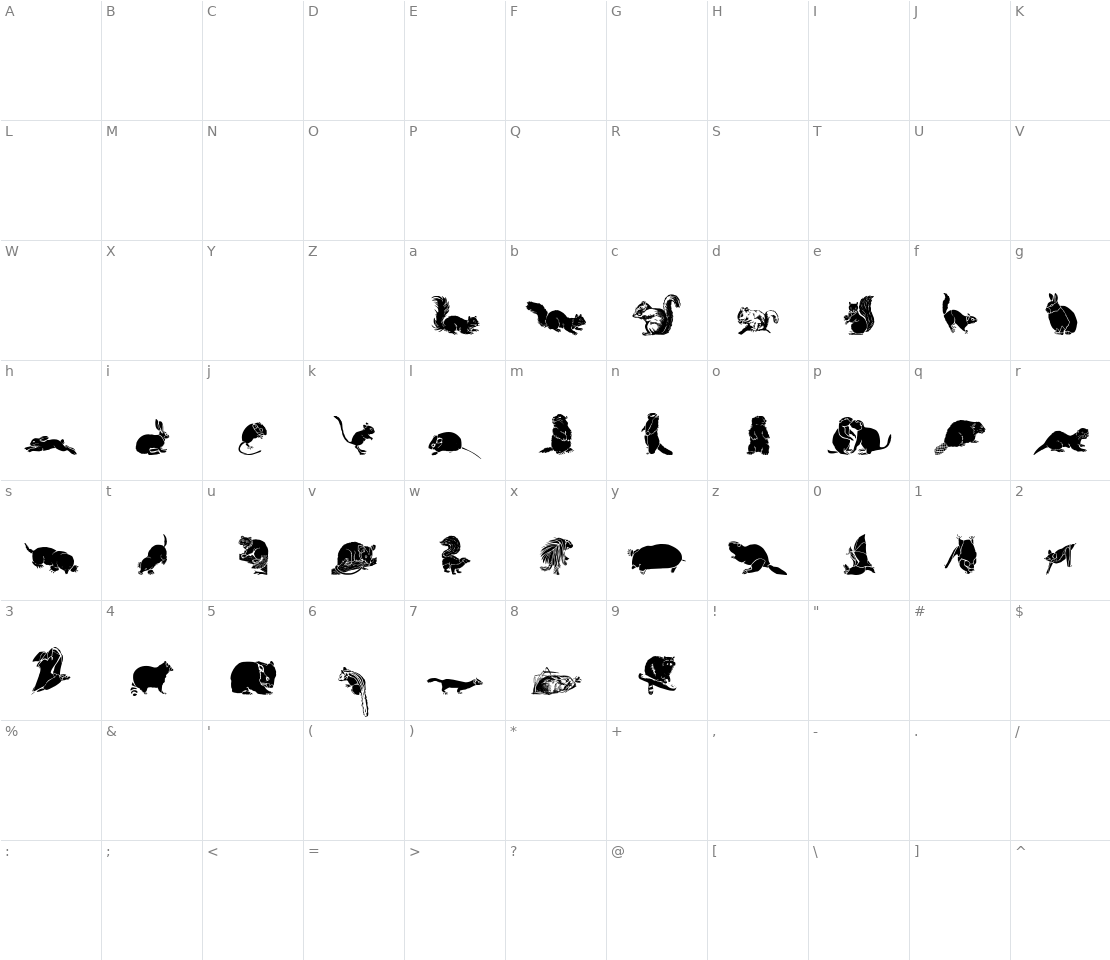
WW Furry Friends
by Angela Lane
WW Furry Friends is a decorative dingbat font from Angela Lane featuring silhouette illustrations of pets and mammals. Each character maps to a different animal icon, making it a handy resource for pet-related projects, children's materials, greeting cards, or nature-themed layouts where you need quick, consistent animal graphics without reaching for separate clip art.